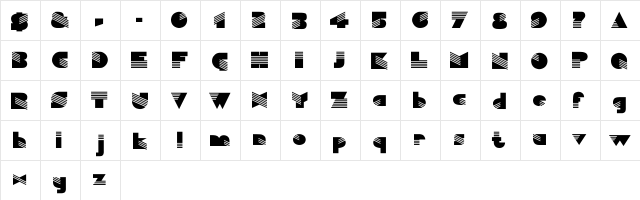
Sinaloa-Normal Regular
Design Context for Sinaloa-Normal Typeface
Sinaloa-Normal is a composed and adaptable typeface that performs quietly and consistently across a wide range of design contexts.